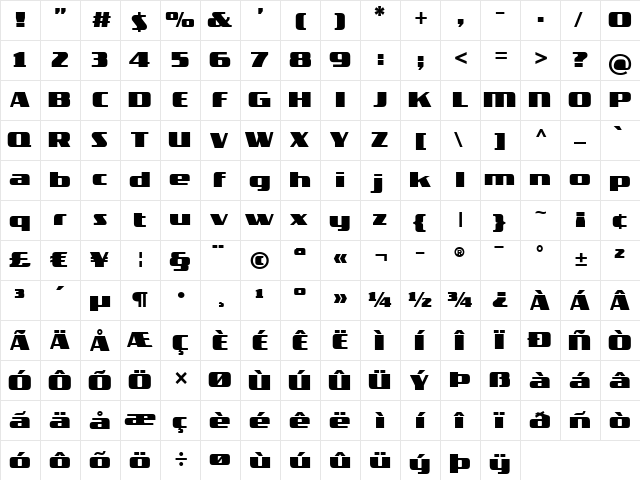
TradeMarker Fat
Design Context for TradeMarker Typeface
TradeMarker takes a measured approach to typography — its balanced proportions and neutral character make it a reliable workhorse for both digital and print work.
Pro Tip: Pair TradeMarker with a font of contrasting weight or personality to build a more expressive typographic hierarchy.